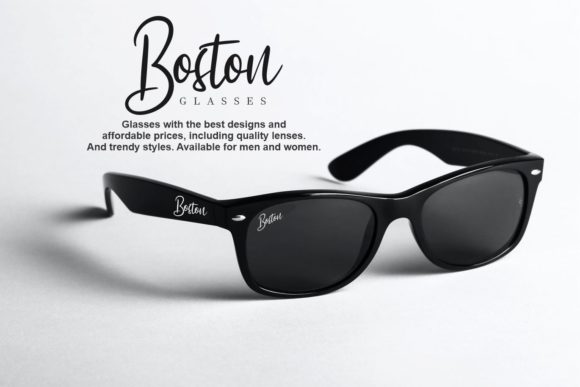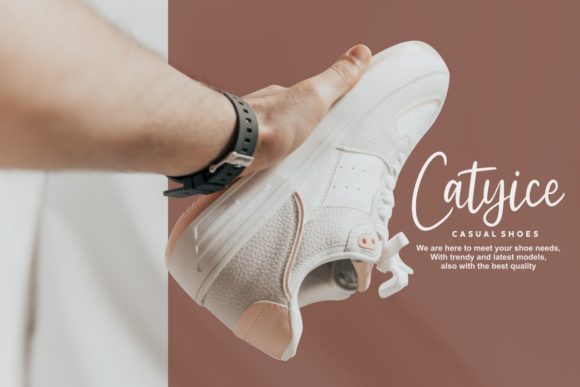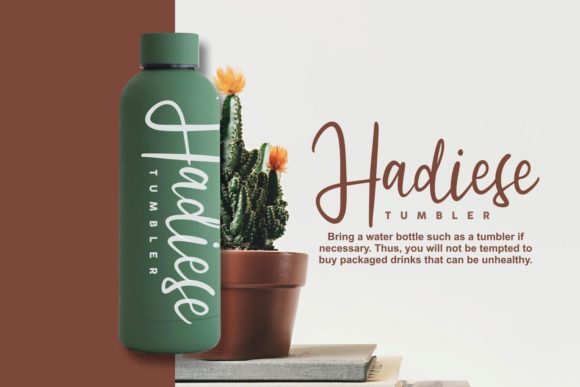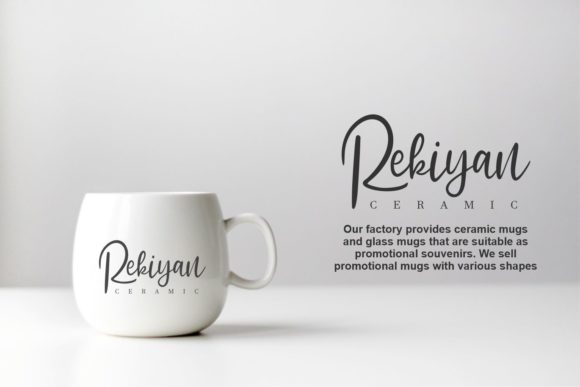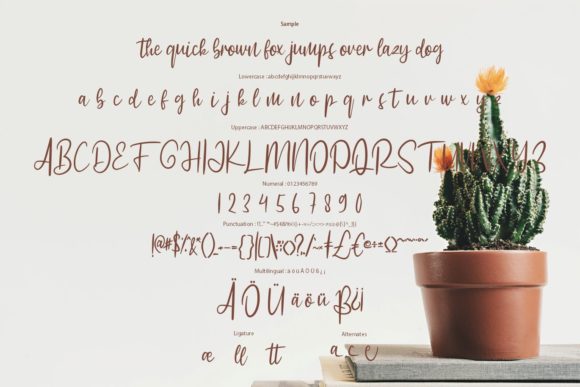
Gatshlie Script Font
About Gatshlie Script Font
Gatshlie Script is a beautiful and adaptable calligraphy typeface with characters that dance along the baseline. It will add a luxury spark to any design project that you wish to create!